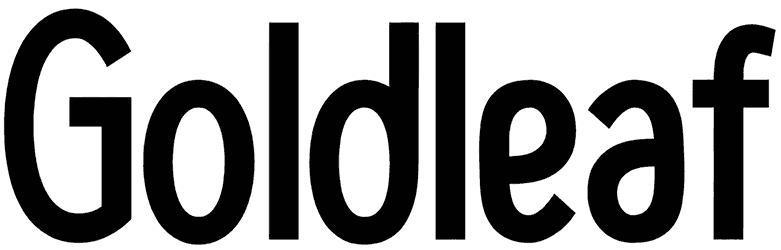
Goldleaf Font
Goldleaf is a basic sans-serif font that is characterized by its clean, modern lines. However, it should be noted that Goldleaf does not support numbers, but it is still a popular tall font among designers due to its versatility and aesthetic appeal.